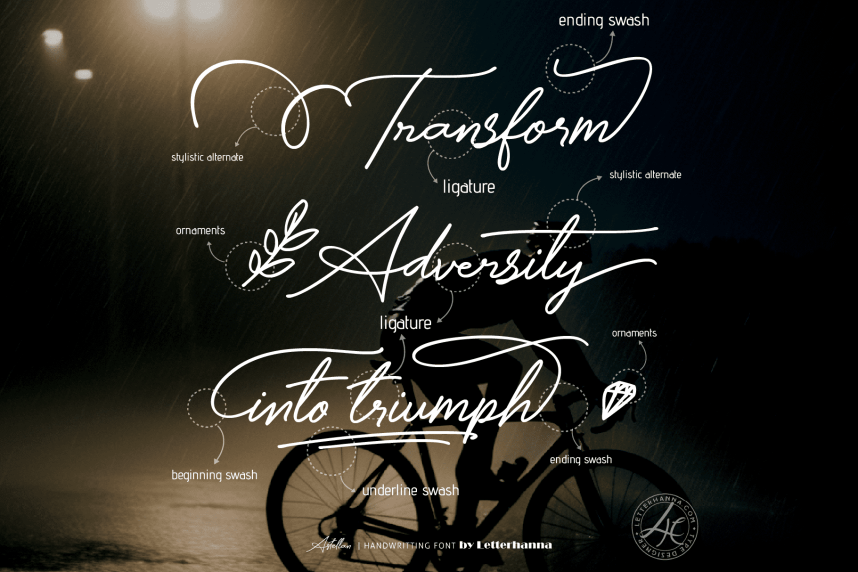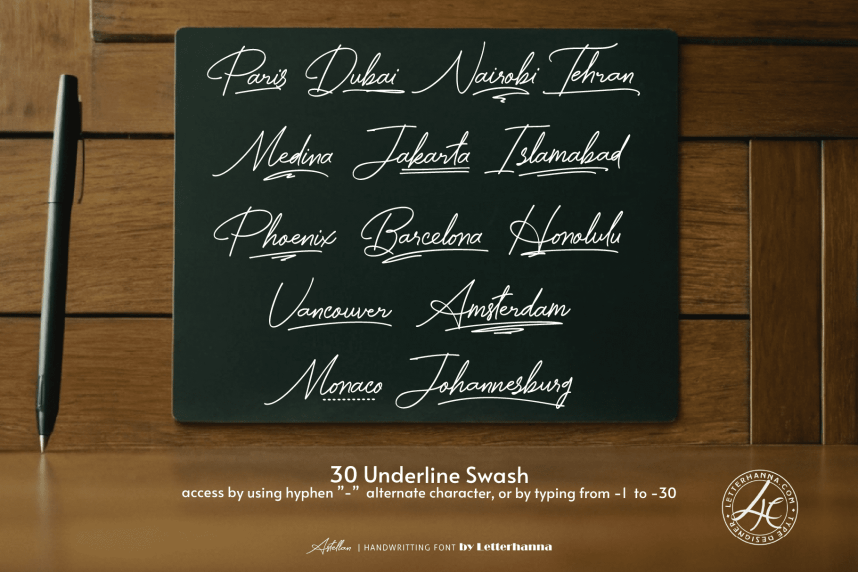
Astellan Wedding Invite Font
Meet Astellan Wedding Invite Font, a flowing signature script made for romance. With tall loops, graceful swashes, and a delicate petal accent, it’s the good wedding font your invitations have been waiting for. Perfect for save-the-dates, monograms, and fancy lettering on every part of your suite. Warm and personal, like a letter written by hand, yet easy to read even on small RSVP cards. E